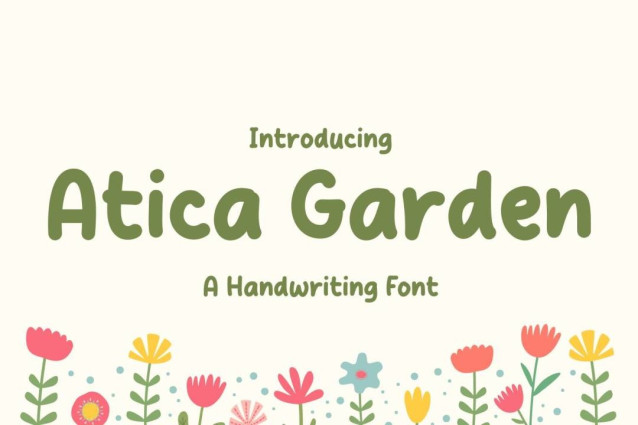
Atica Garden Font
Atica Garden Font a sweet and friendly handwritten font. Cute and fun, this font is ideal for writing wedding invitations, cards, or any other design that might need a fun touch!